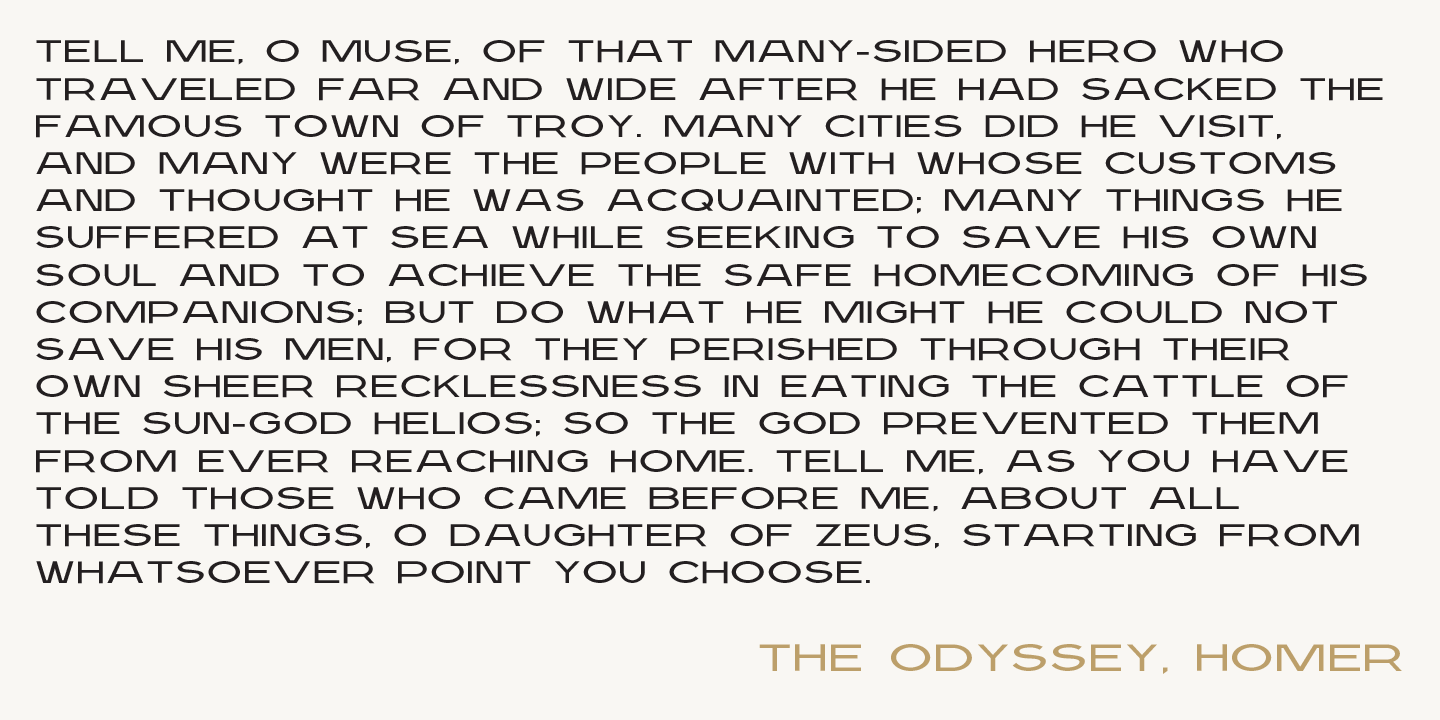
Chartreux Font is perfect for various applications including French bistro branding, artisan bakery signage, vintage wine labels, luxury culinary magazines, boutique hotel logos, gourmet restaurant menus, European travel guides, sophisticated cafe designs, heritage brand identities, and refined gastronomy marketing.
What makes Chartreux Font so exciting is its exquisite embodiment of French sophistication and European culinary tradition that instantly transports viewers to the charming streets of Paris. This elegant typeface features graceful letterforms with continental flair and refined details that evoke the timeless elegance of French typography and the artisanal quality of European craftsmanship. The font's cultured character and gastronomic aesthetic make it ideal for brands that want to convey authenticity, refinement, and European heritage to audiences who appreciate fine dining, artisanal products, and sophisticated lifestyle experiences.
Chartreux Font family includes multiple weights and styles: Light, Regular, Medium, Bold, Elegant, Condensed, Extended, Vintage, and gracefully crafted Italic variants. Each family member maintains the font's signature French sophistication while offering different levels of visual impact and stylistic flexibility for diverse culinary and luxury applications.
The Chartreux Font Free Download offers designers access to a European-inspired typeface that excels in culinary and luxury hospitality markets. Whether you're creating authentic French restaurant identities, designing gourmet product packaging, or developing sophisticated travel experiences, this font delivers the refined aesthetic needed to attract discerning food enthusiasts and luxury travelers. Its continental styling and culinary essence make it particularly effective for fine dining establishments, artisan food producers, and European-themed hospitality venues.
Typography connoisseurs will appreciate the sophisticated craftsmanship and European elegance in Chartreux Font's design. The font features beautifully proportioned letterforms with continental character, optimized spacing for luxury applications, and carefully balanced details that ensure excellent readability while maintaining its sophisticated French character. From intimate bistro menus to luxury travel brochures, this typeface maintains its elegance and European appeal across all culinary contexts.
For luxury hospitality designers, Chartreux Font provides outstanding performance in gourmet digital environments and upscale dining platforms. The font's technical specifications are optimized for premium presentations while preserving the elegant, refined edges that define its French character. Its versatility makes it suitable for both traditional printed menus and modern culinary digital experiences.
Creative professionals working in fine dining, luxury hospitality, gourmet products, and European tourism will find Chartreux Font to be an indispensable tool for projects requiring sophisticated visual communication. The font's ability to convey authenticity, refinement, and European heritage makes it invaluable for brands targeting culinary enthusiasts and luxury-conscious demographics.